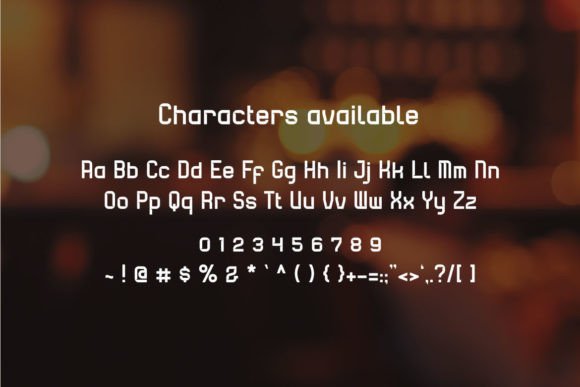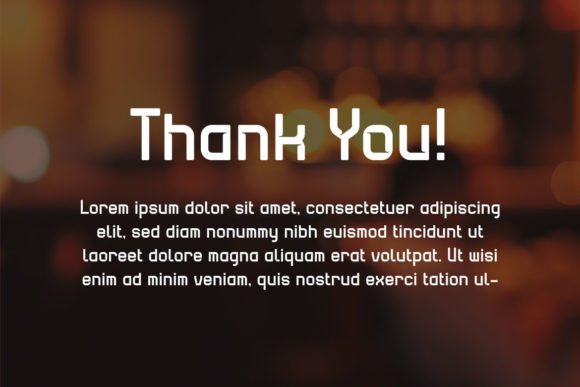
Introducing Clusted Font: The Modern Sans-Serif Display Font for Creative Projects
In the world of typography, a font can make or break a design project. A well-chosen font can elevate your work, making it more engaging, readable, and visually appealing. If you’re a designer, crafter, or DIY enthusiast looking for a modern and versatile font, look no further than Clusted Font. In this article, we’ll explore the features and benefits of Clusted Font, and how it can enhance your creative projects.
What is Clusted Font?
Clusted Font is a modern and straightforward sans-serif display font designed to make a statement. Its clean lines, simple shapes, and bold character make it perfect for a wide range of projects, from cards and book titles to news headlines, banners, flyers, and stationery. Whether you’re working on a large-scale project or a small one, Clusted Font adapts seamlessly to any scale, ensuring your design looks great in any context.
Key Features of Clusted Font
• Modern and Straightforward Design: Clusted Font boasts a contemporary and minimalist design that will give your projects a fresh and modern look.
• Sans-Serif Display Font: The font’s sans-serif design makes it highly legible, even at small sizes, while its display font style adds a touch of sophistication and elegance.
• Versatile and Adaptable: Clusted Font can be used in a variety of projects, from print materials like cards, book titles, and stationery to digital applications like banners, flyers, and headlines.
• Scalable: Whether you’re working on a large billboard or a small business card, Clusted Font remains clear and legible, making it perfect for any scale of work.
Benefits of Using Clusted Font
So, why choose Clusted Font for your next project? Here are just a few benefits of using this versatile font:
• Enhance Readability: Clusted Font’s clear and simple design ensures that your text is easy to read, making it perfect for body text, headlines, and titles.
• Add Visual Appeal: The font’s modern and bold design adds a touch of sophistication and style to your projects, making them more visually appealing.
• Save Time: With Clusted Font, you can create professional-looking projects quickly and easily, saving you time and effort.
• Increase Versatility: Clusted Font’s adaptability means you can use it across multiple projects and applications, making it a valuable addition to your font library.
How to Use Clusted Font in Your Projects
Using Clusted Font in your projects is easy. Here are a few tips to get you started:
• Pair with Other Fonts: Combine Clusted Font with other fonts to create a unique and visually appealing typography scheme.
• Experiment with Sizes: Clusted Font’s scalability means you can use it in a range of sizes, from small captions to large headlines.
• Play with Colors: The font’s simple design makes it easy to use with a variety of colors and textures, allowing you to add depth and interest to your projects.
In conclusion, Clusted Font is a versatile and modern sans-serif display font that’s perfect for a wide range of creative projects. Its clean design, adaptability, and scalability make it an excellent choice for designers, crafters, and DIY enthusiasts looking to elevate their work. With Clusted Font, you can create professional-looking projects quickly and easily, and add a touch of sophistication and style to your designs.